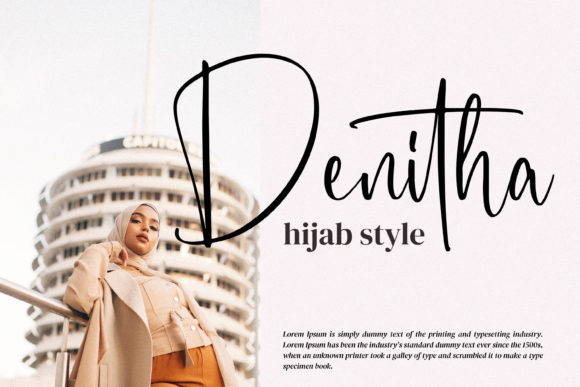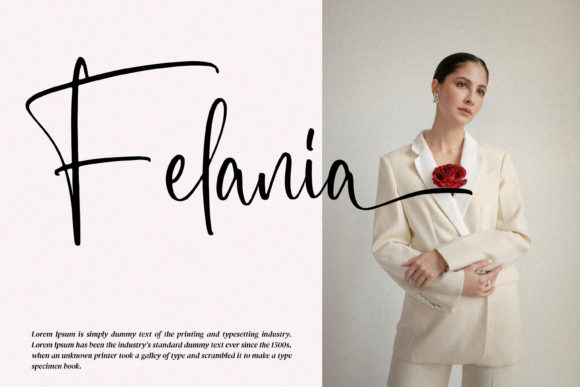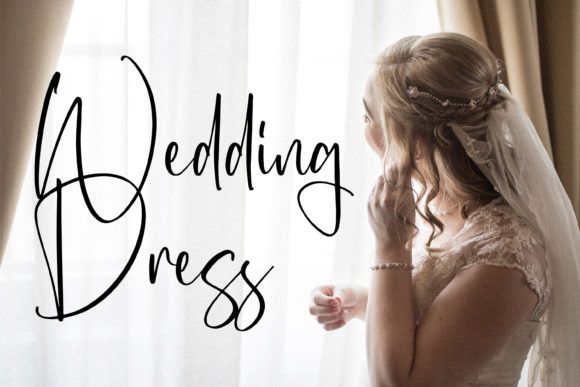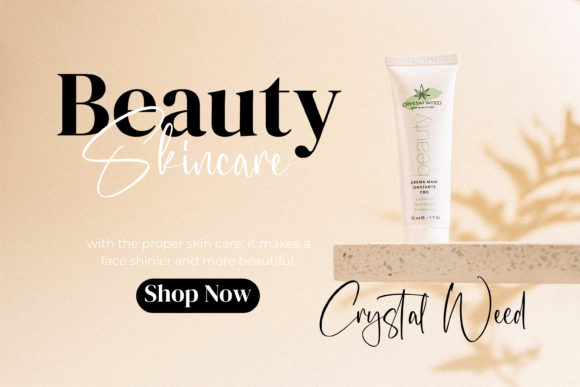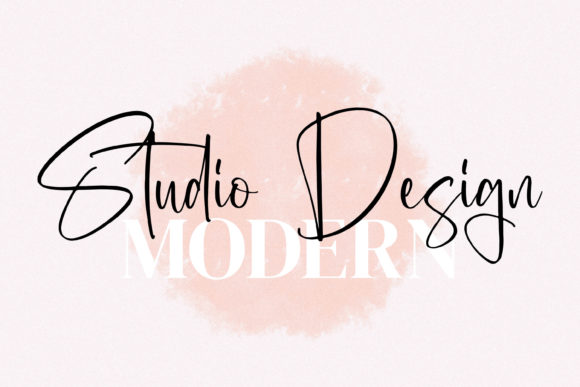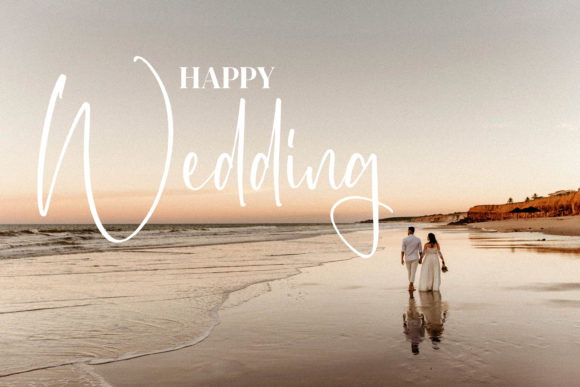
Introduction to Rendika Font
Have you ever found yourself in the midst of a creative project, desperately searching for the perfect font to give it that extra oomph? The blank page stares back at you, taunting you with its emptiness, until suddenly, a spark of inspiration hits, and you remember the existence of the Rendika Font. This premium handwritten font is the ultimate game-changer for designers, offering a high-quality, luxurious feel that elevates any project from ordinary to extraordinary.
Whether you’re designing logos, branding projects, or homeware, the Rendika Font is the perfect design resource to add a touch of sophistication and elegance. With its unique, handwritten style, it’s perfect for a wide range of creative projects, from quotes and posters to book covers and name cards. And the best part? The Rendika Font is available for free download, making it an accessible and valuable addition to any designer’s toolkit.
What sets the Rendika Font apart from other design resources is its versatility and high quality. With a transparent background, it’s perfect for overlaying on images or using as a standalone design element. Whether you’re working on a creative project or simply need a reliable design resource, the Rendika Font is an invaluable asset that’s sure to take your designs to the next level.
Key Features of Rendika Font
- Unique and Creative Design: Rendika Font is a high-quality design resource ideal for creative projects requiring a distinctive touch.
- Perfect for Designers: Rendika Font is an excellent addition to any designer’s toolkit, offering a unique and creative design element for various projects.
Honest Review: Rendika Font
As a designer, I’m always on the lookout for high-quality design resources to elevate my creative projects. Recently, I stumbled upon the Rendika Font, and I’m excited to share my honest review with you.
- ✨ High-quality typography: The Rendika Font boasts a sophisticated and elegant design that’s perfect for a variety of projects.
- ✨ Versatility: This font is suitable for both print and digital applications, making it a valuable addition to any designer’s toolkit.
- ⚠️ Limited character set: The font only comes in a few weights, which might limit its use for complex projects.
Overall, I’m impressed with the Rendika Font’s design and versatility. While it has some limitations, it’s still a valuable resource for designers working on creative projects. If you’re looking for a high-quality, free font, the Rendika Font is definitely worth checking out.
The Rendika Font is a high-quality design resource ideal for various creative projects. This versatile font is available for free download, making it an excellent addition to any design collection.
1. Logo design: Rendika Font is ideal for creating eye-catching logos with a transparent background.